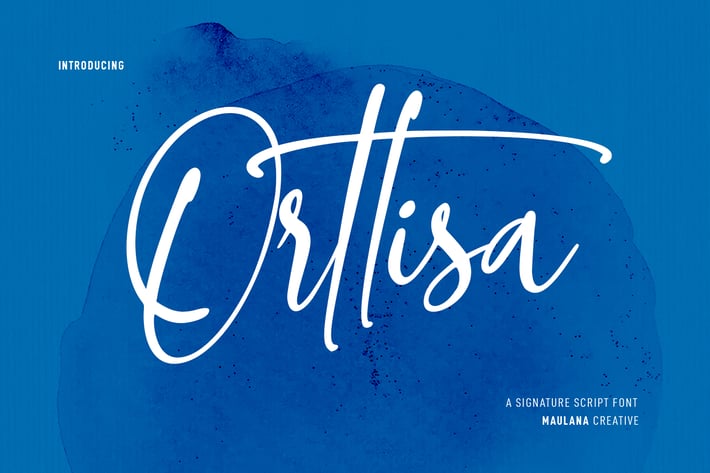
Orttisa Signature Script Font
Orttisa is an slanted style script font. With light contrast stroke, fun character with a bit of ligatures and alternates. To give you an extra creative work. Orttisa font support multilingual more than 100+ language. This font is good for logo design, Social media, Movie Titles, Books Titles, a short text even a long text letter and good for your secondary text font with sans or serif. Make a stunning work with Orttisa font.